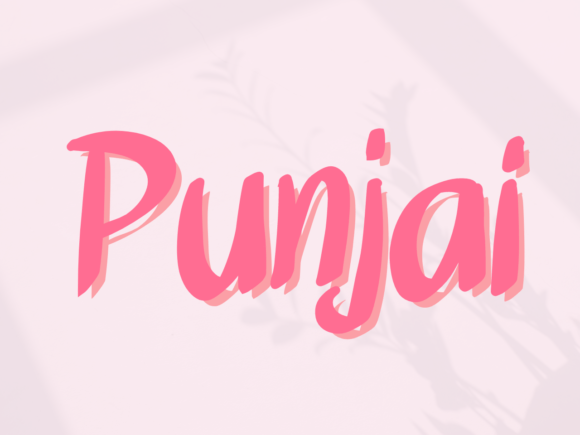
Immerse yourself in the whimsical world of Punjai Font, a captivating creation by Pukka De that oozes charm and playfulness. This delightful script font boasts an enchanting personality, adding a touch of whimsy to your digital adventures. Unleash your creativity and let Punjai's graceful strokes bring your designs to life.
Crafted with meticulous attention to detail, Punjai Font captures the essence of handwritten beauty. Its charming curves and playful flourishes evoke a sense of nostalgia, while its contemporary appeal ensures that your designs stay rooted in the present. Whether you're a seasoned designer or just starting your creative journey, Punjai Font is the perfect companion for adding a dash of whimsy to your visual masterpieces.
Picture this: a website that dances with charm and individuality, capturing the hearts of visitors with each scroll. With Punjai Font as your trusty ally, you can create a digital haven that exudes creativity and warmth. Its ability to effortlessly blend with various design styles makes it the ideal choice for fashion blogs, travel diaries, or any project that craves a touch of enchantment.
But Punjai Font's magic doesn't stop there. Its versatility extends to the realm of social media, where it can transform your posts and stories into captivating works of art. Imagine Instagram feeds that pop with personality, Facebook posts that spark engagement, and Twitter updates that leave a lasting impression. Punjai Font is the secret weapon you need to make your social media presence truly shine.
And let's not forget the world of print. Punjai Font seamlessly transitions from the digital realm to the tangible world, adding a touch of whimsy to greeting cards, invitations, and posters. Its playful nature is sure to leave a lasting impression on friends, family, and clients alike.
So, embark on a creative adventure with Punjai Font and discover a world of endless possibilities. Its charming personality, versatility, and boundless creativity will elevate your designs and leave a lasting impression on those who encounter them. Let Punjai Font be your guide as you weave magic into your digital creations and leave an unforgettable mark on the world.